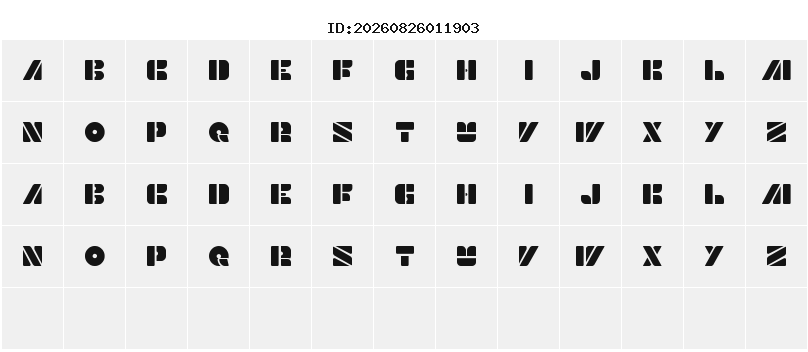
• Font Name: SCIENCE CHANNEL
About SCIENCE CHANNEL.ttf
SCIENCE CHANNEL.ttf is a modern, elegant sans-serif font designed for ultimate readability and visual harmony. Perfect for branding, headlines, web design, and print materials.